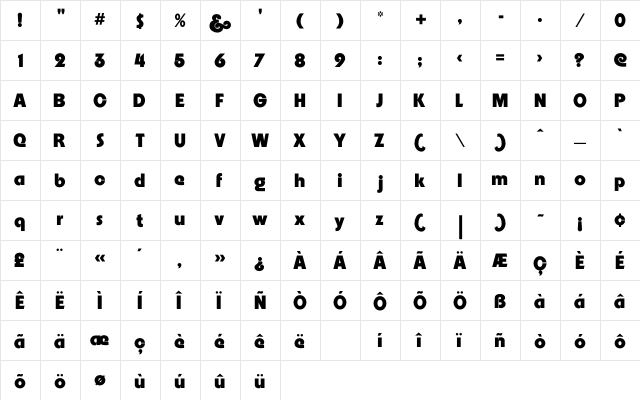
Embrionic85 Bold
Design Context for Embrionic85 Typeface
Embrionic85 takes a measured approach to typography — its balanced proportions and neutral character make it a reliable workhorse for both digital and print work. The heavy weight commands attention and anchors typographic hierarchies.